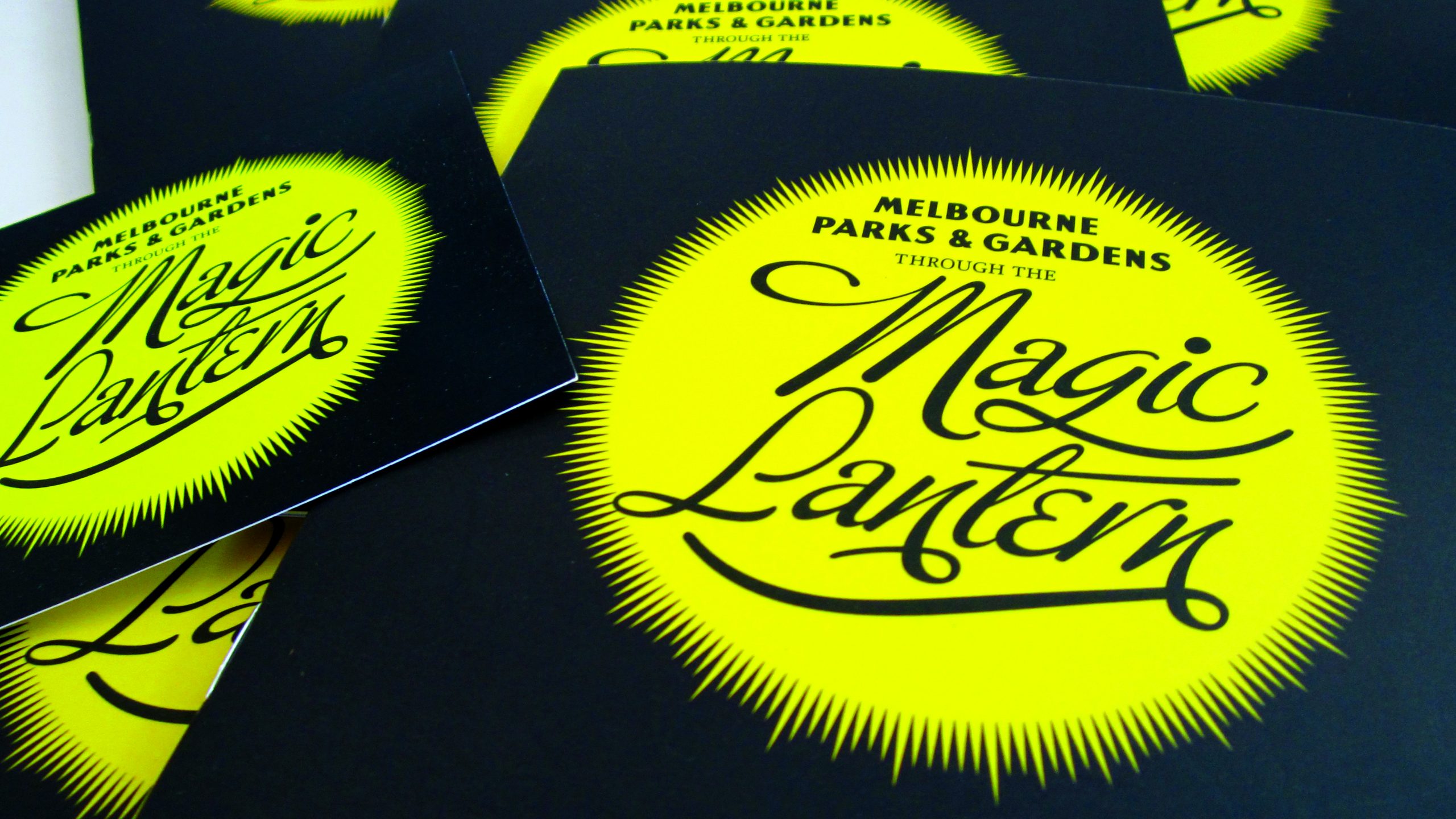
Bringing Light
Celebrating the ‘magic’ of glass photographic slides from the late 19th century, Magic Lantern conjures the dark and brooding early park-scapes of Melbourne. The exhibition identity draws upon the embellished script typefaces of the 1890s, framed as a form of illumination – in all its senses.
The Magic Lantern Exhibition at Melbourne’s City Gallery (2012). Identity and Exhibition Design by Letterbox.